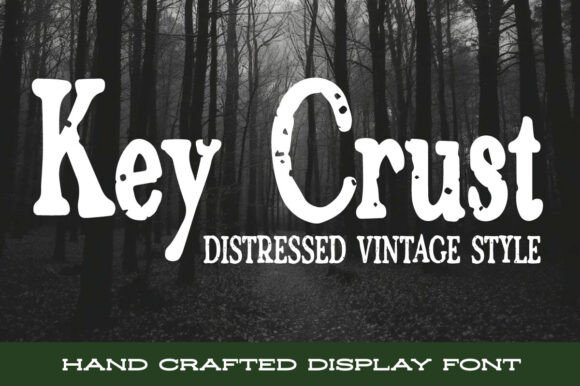
Key Crust Font: The Ultimate Vintage Typewriter Font for Your Creative Projects
Are you looking for a font that can add a touch of nostalgia and authenticity to your designs? Look no further than Key Crust, a vintage distressed typewriter font that brings the charm of old, worn-out keys and faded ink to your creative projects. In this article, we’ll explore the unique features of Key Crust, its uses, and why it’s the perfect addition to your font collection.
The Charm of Key Crust Font
Key Crust is a carefully crafted font that mimics the look and feel of old typewriters. Its textured, imperfect characters evoke the nostalgic feel of well-loved typewriters, complete with rugged edges and a weathered appearance. The font’s distressed look gives it a unique, one-of-a-kind feel that’s perfect for adding a touch of rustic character to your designs.
Unique Features of Key Crust
So, what sets Key Crust apart from other fonts? Here are some of its unique features:
- Distressed texture: Key Crust has a worn, distressed texture that gives it a vintage feel.
- Imperfect characters: The font’s characters are imperfect, with rugged edges and a weathered appearance.
- Vintage typewriter feel: Key Crust is designed to mimic the look and feel of old typewriters.
- Nostalgic charm: The font’s nostalgic charm is perfect for adding a touch of authenticity to your designs.
Uses of Key Crust Font
Key Crust is a versatile font that can be used for a variety of creative projects. Here are some ideas:
- Vintage posters: Add a touch of nostalgia to your posters with Key Crust.
- Retro-themed projects: Key Crust is perfect for retro-themed projects, such as logos, branding, and packaging.
- Old-school grit: Add a touch of authentic, old-school grit to your designs with Key Crust.
- Creative endeavors: Use Key Crust for any creative project that needs a unique, vintage touch.
Why Choose Key Crust Font?
So, why choose Key Crust over other fonts? Here are some reasons:
- Unique look: Key Crust has a unique, one-of-a-kind look that’s sure to stand out.
- Authentic feel: The font’s distressed texture and imperfect characters give it an authentic, vintage feel.
- Versatile: Key Crust can be used for a variety of creative projects.
- Easily readable: Despite its distressed look, Key Crust is easily readable, making it perfect for body text and headlines.
Tips for Using Key Crust Font
Here are some tips for using Key Crust effectively:
- Use it sparingly: Key Crust is a bold font, so use it sparingly to add emphasis to your designs.
- Pair it with other fonts: Pair Key Crust with other fonts to create a unique, contrasting look.
- Experiment with colors: Experiment with different colors to find the perfect match for your design.
- Pay attention to kerning: Pay attention to kerning to ensure that your text looks professional and polished.
In conclusion, Key Crust is a unique and versatile font that’s perfect for adding a touch of nostalgia and authenticity to your designs. Its distressed texture, imperfect characters, and vintage typewriter feel make it a standout font that’s sure to grab attention. Whether you’re working on a vintage poster, retro-themed project, or any creative endeavor, Key Crust is the perfect addition to your font collection.
- What is Key Crust font? Key Crust is a vintage distressed typewriter font that brings the charm of old, worn-out keys and faded ink to your designs.
- What makes Key Crust unique? Key Crust has a unique, distressed texture and imperfect characters that give it a vintage feel.
- Is Key Crust easy to read? Yes, despite its distressed look, Key Crust is easily readable, making it perfect for body text and headlines.